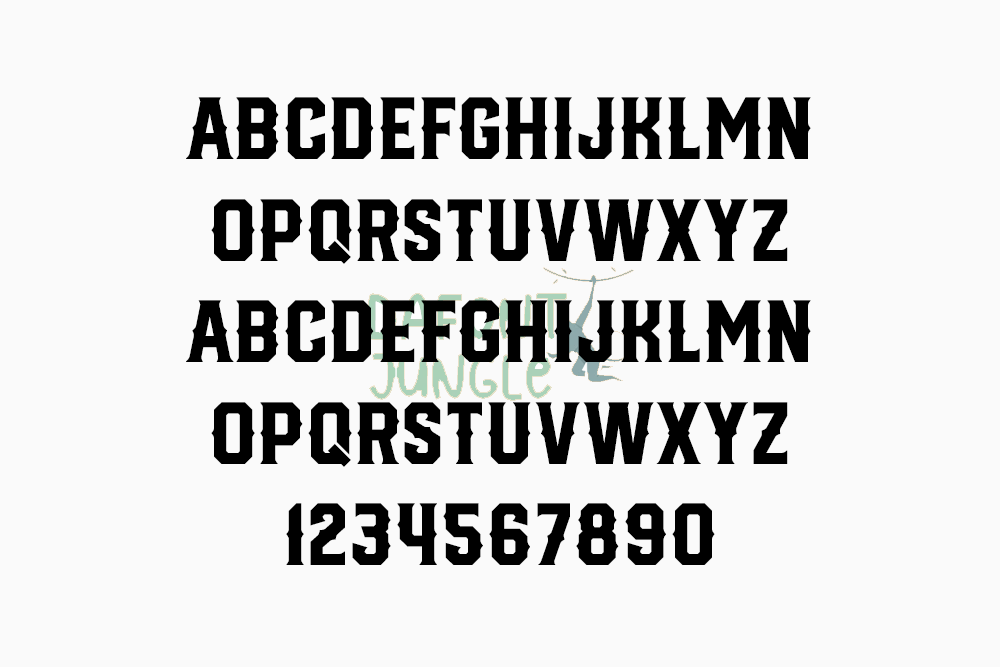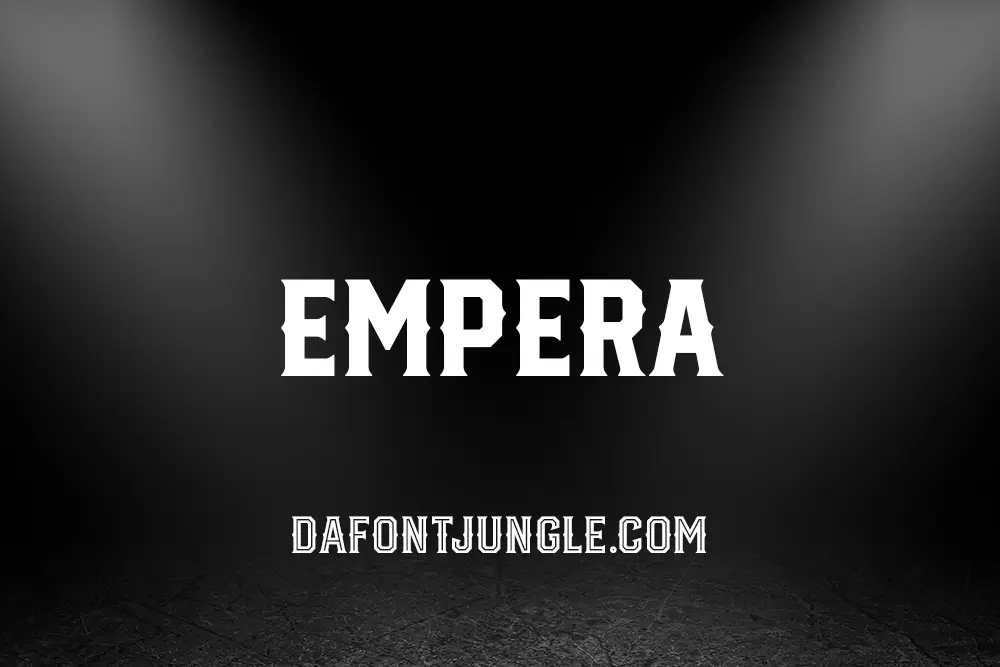
Empera – Athletic Vintage Font Family
Empera is a bold, athletic font family designed for high-impact visuals. With six unique styles, it offers flexibility for everything from sports logos to streetwear branding. Each variation includes authentic vintage textures that add depth and personality to your designs.
Its uppercase and lowercase characters feature multiple textured renders that bring a naturally worn, handcrafted feel. Empera supports a wide range of Western languages and comes with twelve files in both OTF and TTF formats.